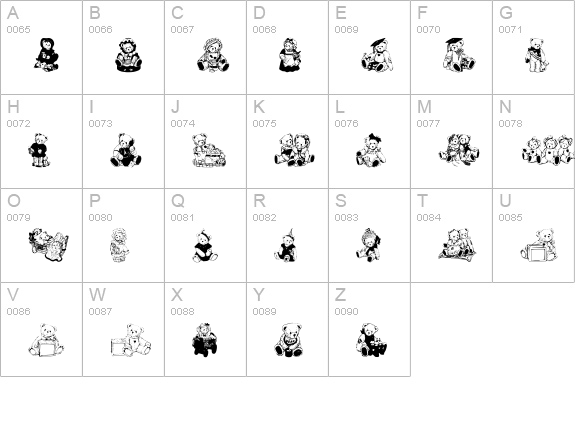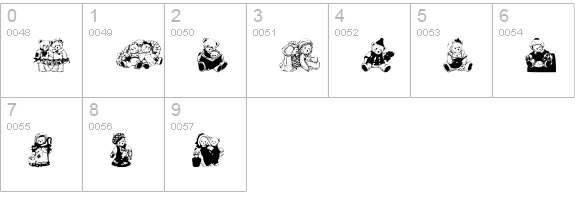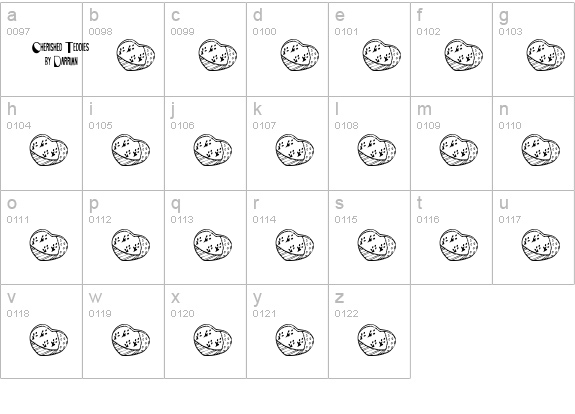
Cherished Teddies Font Details
The Cherished Teddies font is a charming and whimsical typeface that exudes warmth and nostalgia. This delightful font features playful teddy bear characters that will bring a touch of sweetness to any design project. Whether you're creating invitations, greeting cards, or social media posts, the Cherished Teddies font is sure to add a touch of whimsy and charm. What makes this font even more special is that it is available for free download at FontsMarket.com. That's right, you can add this adorable font to your collection without spending a penny. So go ahead and give your designs a dose of cuteness with the Cherished Teddies font - your audience will surely cherish the end result!